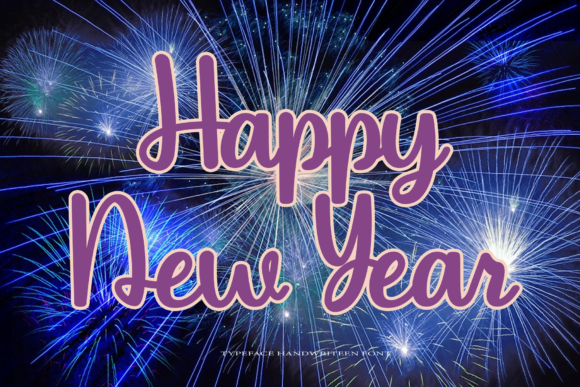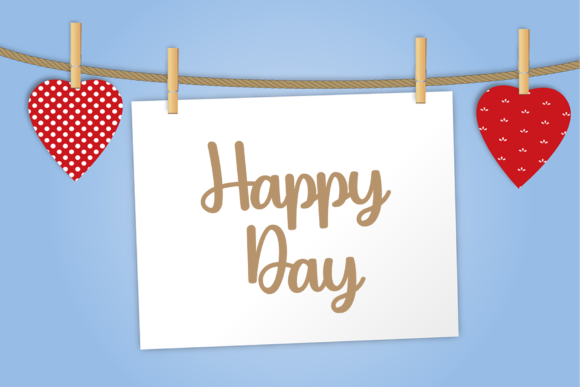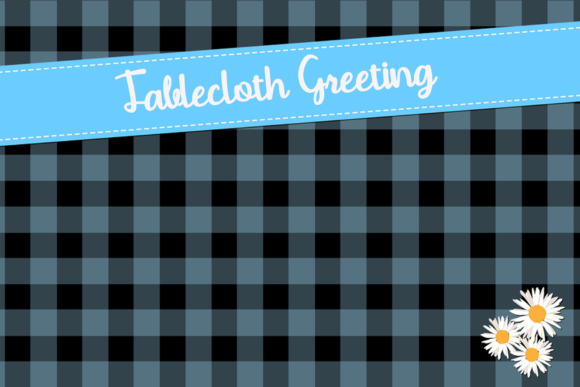
About Sunday Monday Font
Introducing Sunday Monday, a lovely script font with charming and playful characters that bring a sense of joy and movement to your designs. This font is designed to make your creative ideas stand out and capture attention with its delightful and lively appearance.
Sunday Monday’s charming and playful letterforms dance along the baseline, creating a sense of movement and energy in your compositions. Each character is carefully crafted to evoke a sense of joy and playfulness, adding a touch of whimsy to your designs. This combination of charm and liveliness ensures that your creations make a lasting impression.
The versatility of Sunday Monday allows it to shine in various design contexts. Whether you’re working on branding, invitations, greeting cards, social media graphics, or any other creative project, Sunday Monday adds a touch of charm and playfulness. Its script nature creates a visually engaging and dynamic aesthetic that enhances the overall visual appeal.
Sunday Monday’s lovely script style makes it suitable for a wide range of designs. The playful and charming look of the characters adds a sense of whimsy and character to your projects. Whether used for creating eye-catching logos or adding a delightful touch to typography, Sunday Monday brings a unique flair and personality.
No matter the creative idea or project, Sunday Monday has the potential to enhance any creation. Its charming and playful nature make it a perfect choice for various design projects. Let Sunday Monday add a touch of joy and movement to your designs, creating visually captivating compositions that leave a lasting impression.
In summary, Sunday Monday is a lovely script font featuring charming and playful characters that bring joy and movement to your designs. Its delightful and lively appearance captures attention and ensures your creative ideas stand out. Embrace the versatility of Sunday Monday and confidently incorporate it into your various design projects, creating visually captivating compositions that leave a lasting impression.